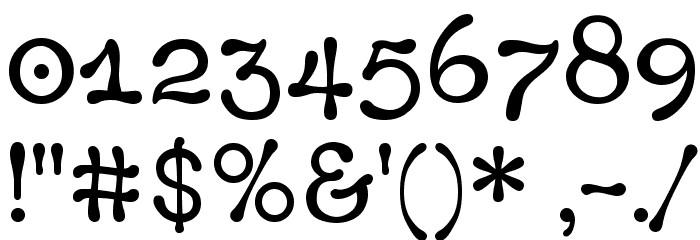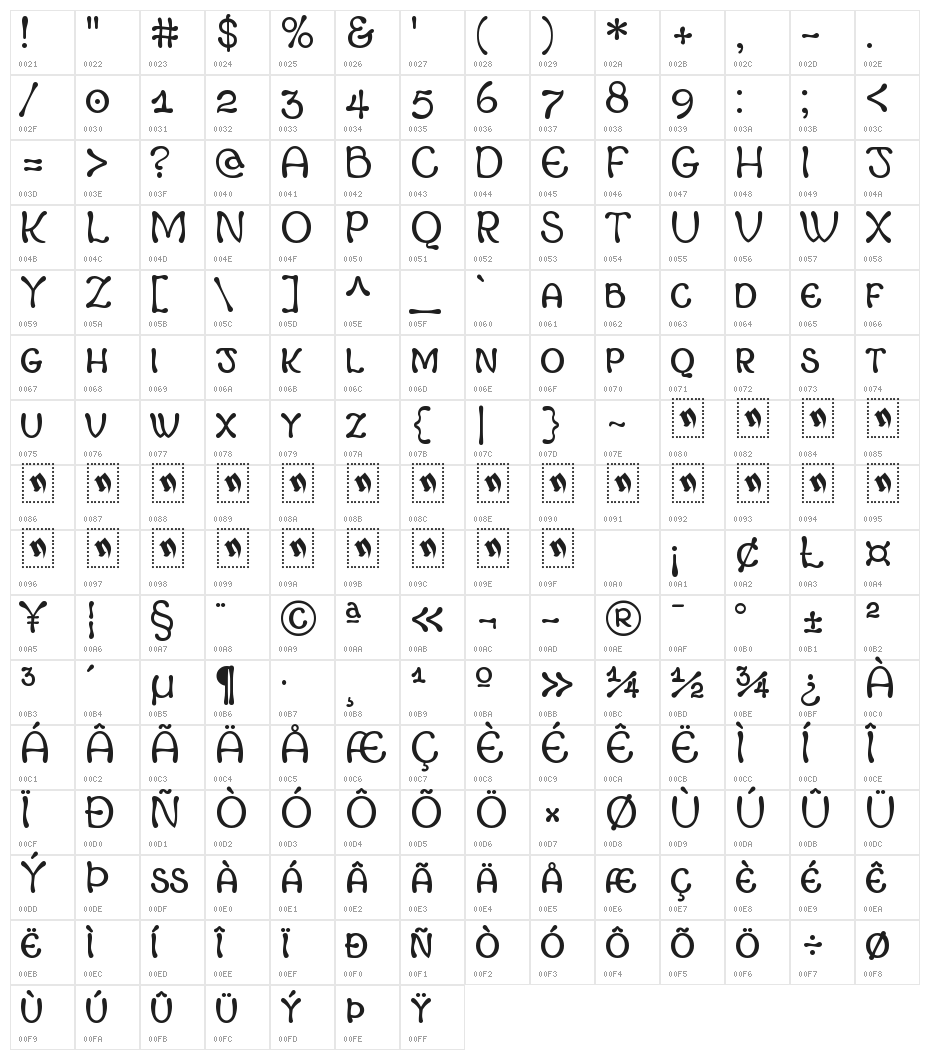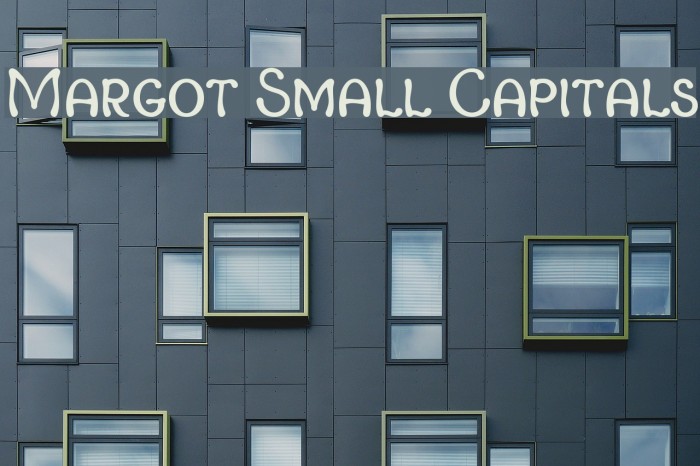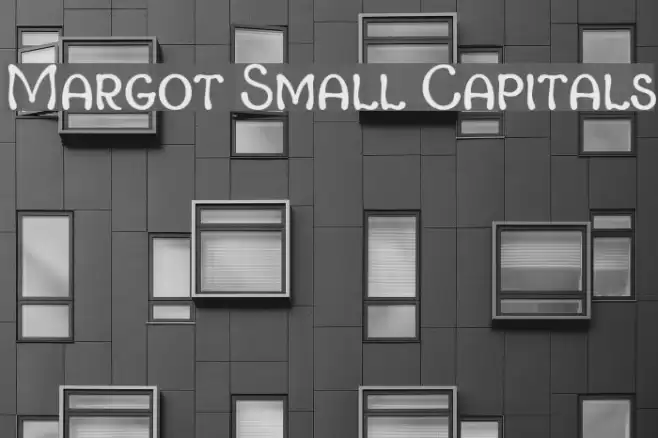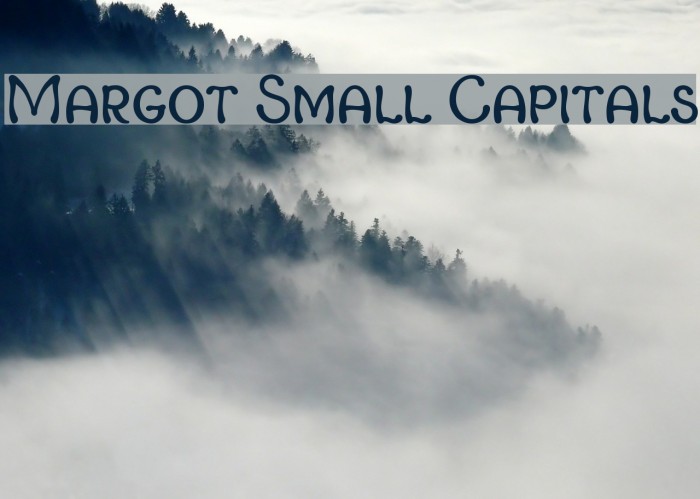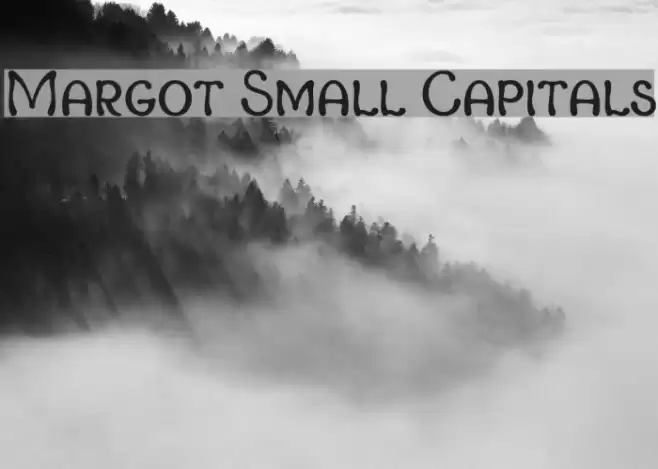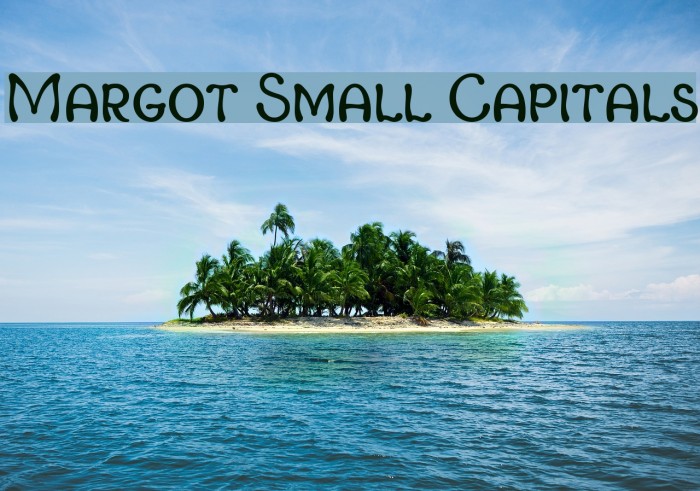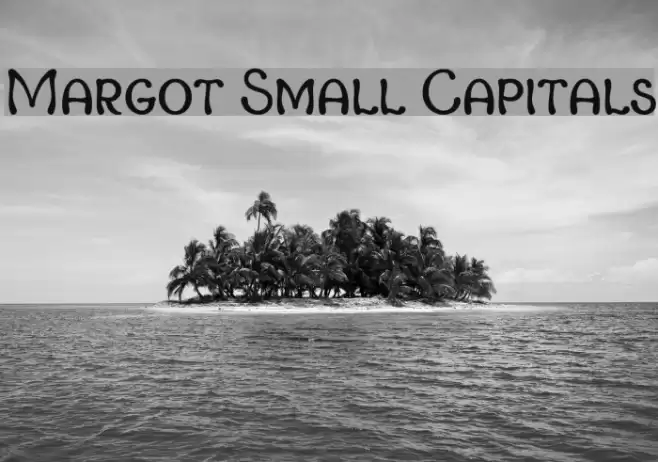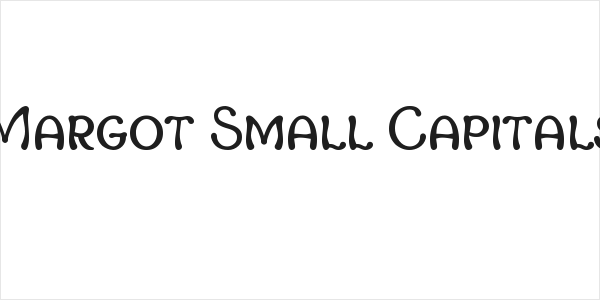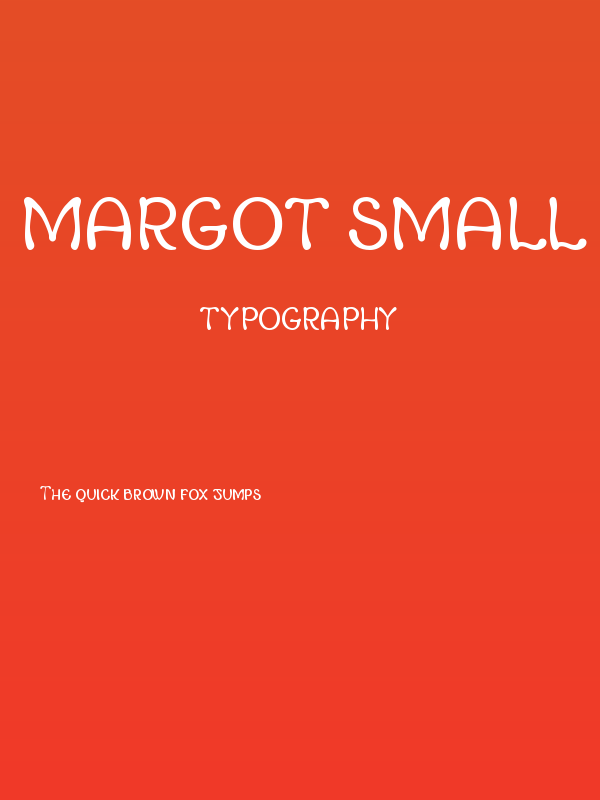
Margot Small Capitals Font
Margot Small Capitals Description
This font features a playful and whimsical design, characterized by its rounded and slightly irregular letterforms. The strokes are consistent in thickness, giving it a uniform appearance, while the curves and loops add a sense of movement and energy. The uppercase and lowercase letters maintain a cohesive style, with the lowercase letters mirroring the playful nature of the uppercase. Numbers and special characters are designed with the same playful curves, ensuring a harmonious look across all characters. This font's unique style makes it stand out, making it suitable for creative and informal applications.